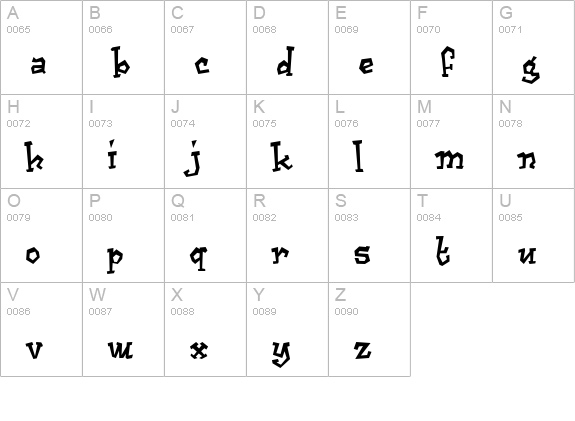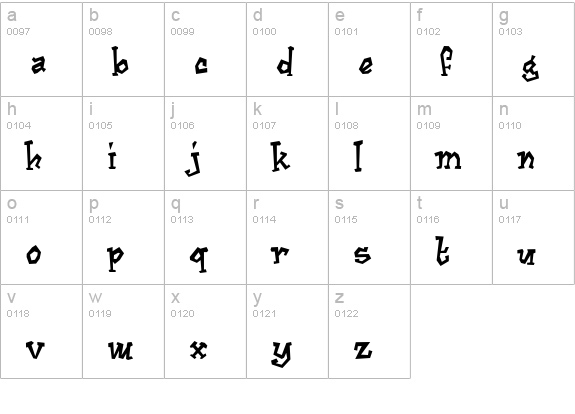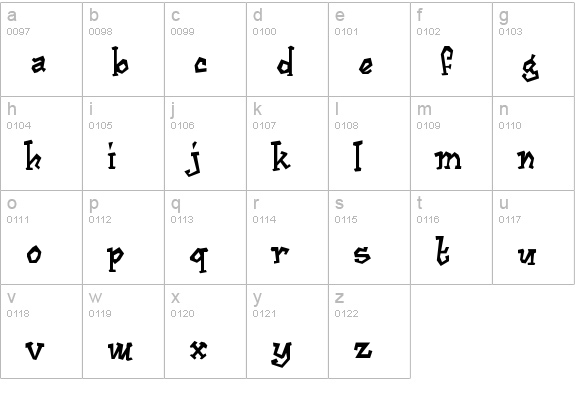
Cajun Boogie Font Details
Cajun Boogie font exudes a playful and energetic vibe, perfect for adding a touch of fun to your designs. With its bold and dynamic letterforms, this font captures the essence of the lively Cajun culture. The unique angles and curves give Cajun Boogie a distinctive charm that will make your text stand out. Best of all, Cajun Boogie font is available for free! You can easily download this font at FontsMarket.com and start using it in your projects right away. Whether you're creating posters, invitations, or branding materials, Cajun Boogie font will bring a touch of joy and excitement to your designs. Don't miss out on this fantastic opportunity to add a little Cajun flair to your typography!